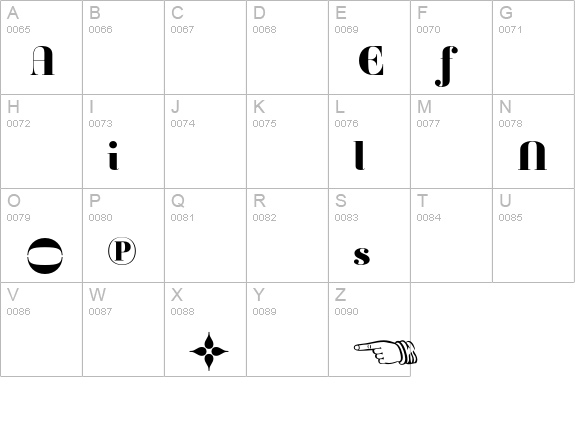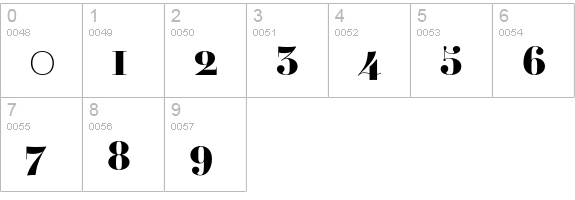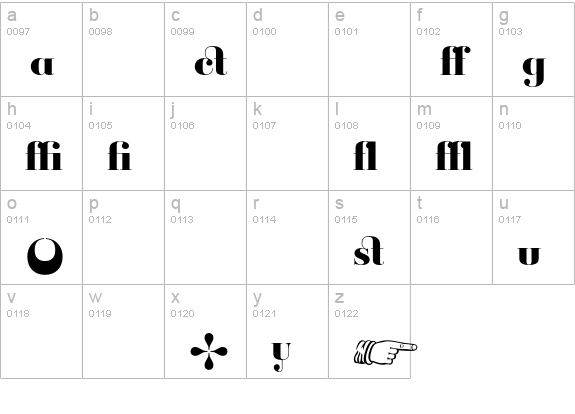
Ambroise Alternates Bold Font Details
Ambroise Alternates Bold is a strong, high-contrast variant in the Ambroise typeface family \xE2\x80\x94 well suited to headlines, attention-grabbing titles, and strong calls-to-action.
Ambroise Alternates Bold font is a modern and stylish typeface that exudes confidence and sophistication. Its bold and striking design makes it perfect for headlines, titles, and other display purposes where you want to make a statement. The clean lines and sharp edges of this font give it a contemporary feel, while the alternate characters add a touch of uniqueness and flair. This font is not only visually appealing but also highly versatile, making it suitable for a wide range of design projects. Whether you're creating posters, flyers, logos, or branding materials, Ambroise Alternates Bold font will help your designs stand out and make a lasting impression. The best part is that Ambroise Alternates Bold font is free to download at FontsMarket.com. This means you can start using this stylish typeface in your projects without having to spend a dime. Don't miss out on this fantastic opportunity to enhance your designs with the elegant and impactful Ambroise Alternates Bold font. Download it now and take your designs to the next level!